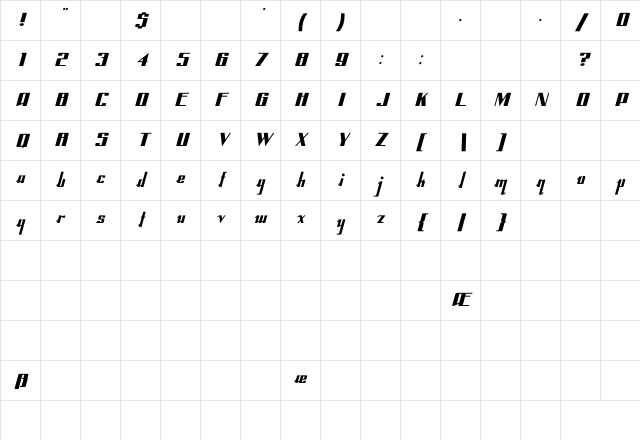
Complete Epiphanatic Old glyph index. Displaying only characters natively supported by Epiphanatic Old font.
Epiphanatic is a composed and adaptable typeface that performs quietly and consistently across a wide range of design contexts.